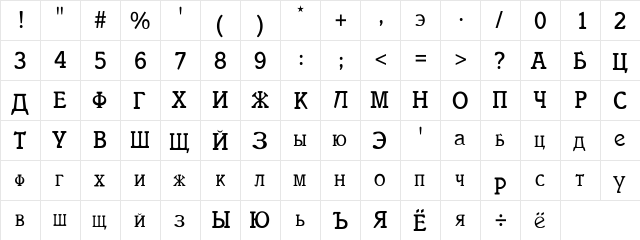
Okrana Regular
Design Context for Okrana Typeface
Okrana is a composed and adaptable typeface that performs quietly and consistently across a wide range of design contexts.
Pro Tip: Use Okrana in both headline and body roles to test its range before committing to a single application.